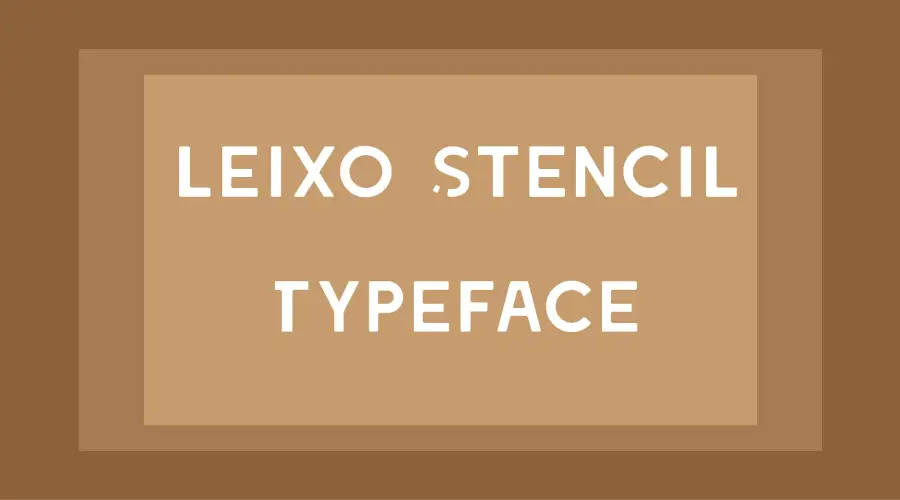
Welcome! Today we will talk about the Leixo Stencil Typeface. Classic Display typefaces of the past influenced this Font. But it was given a more modern feel by removing extraneous elements. On May 14, 2019, phitradesign fonts designed and shared it. Leixo is a high-end stencil with a plethora of options. To make a blend of a stencil-touched multipurpose headline, use lower and upper case. To utilize the ligature, simply type “theliga” and you’ll be presented with a custom-designed pre-set eyecatcher. There are many more ligatures to be found! The font is accessible in both TTF and OTF font.
Leixo Stencil Typeface is more than just a collection of characters; it’s a fusion of form and function, designed to meet the diverse needs of creative endeavors. Its unique stencil design, coupled with its clean and geometric structure, offers a modern and bold aesthetic. Whether you are a seasoned designer or a hobbyist, Leixo provides a versatile and stylish option to elevate your projects, ensuring they capture attention and leave a lasting impression.